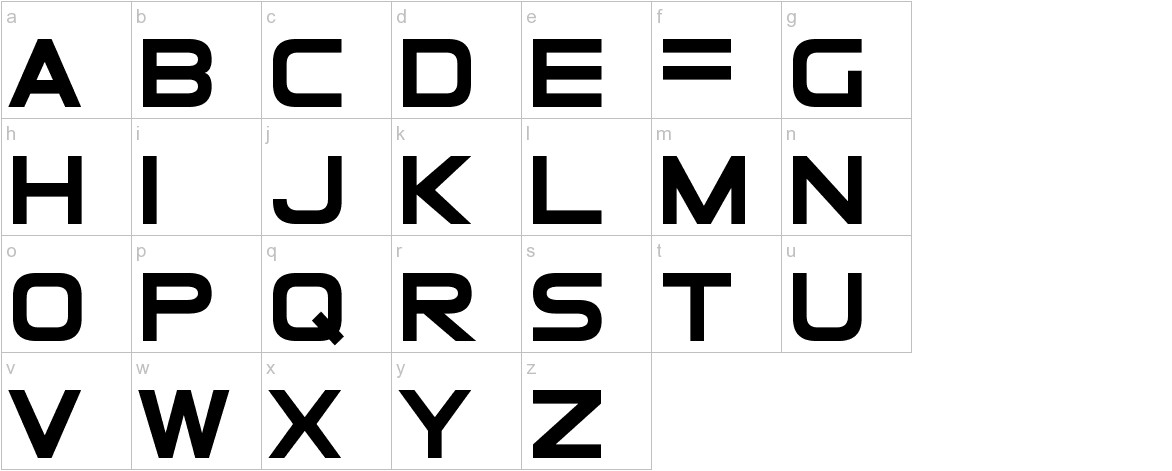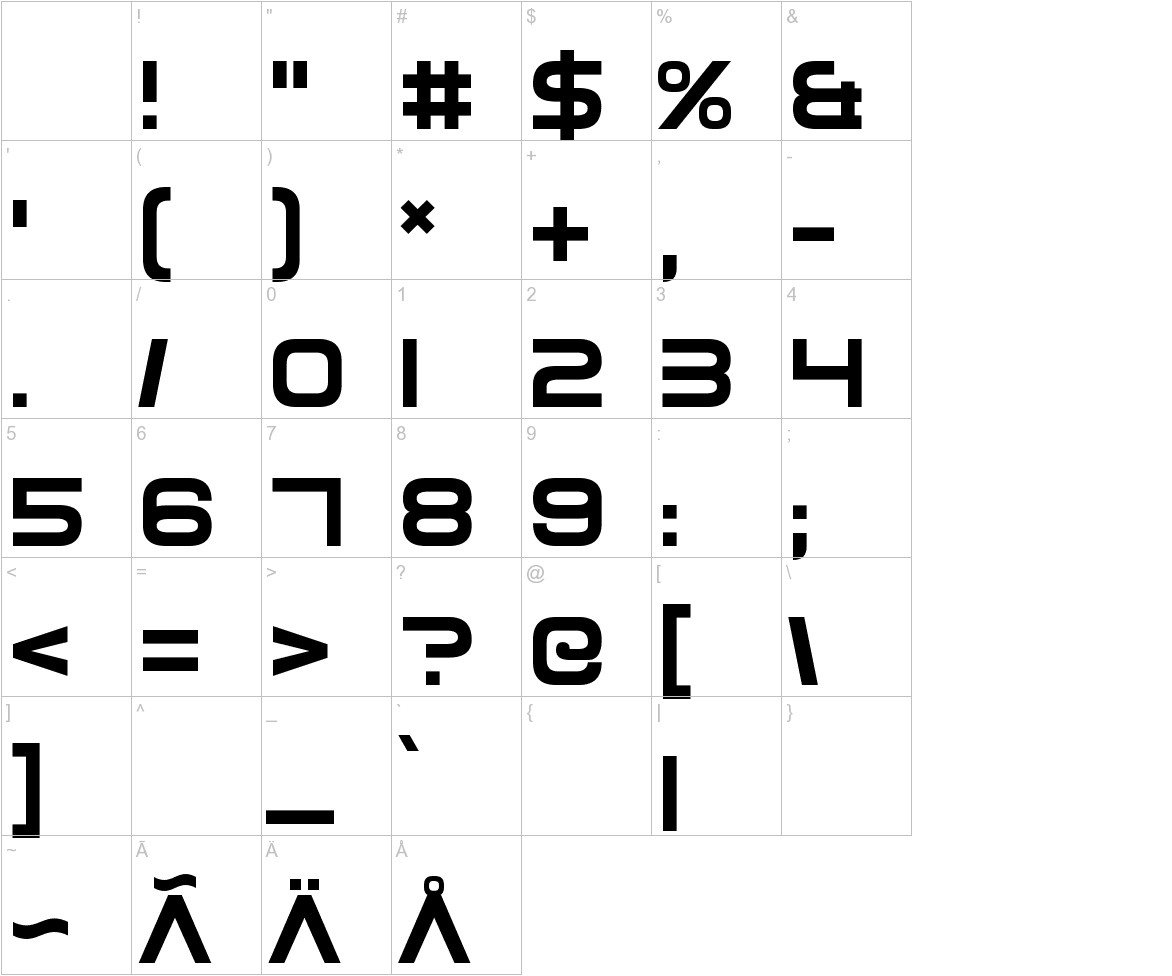
ElementalEnd
A futuristic sans serif caps headline face.
Comes in regular and italic.
Upper case letters are alternative forms, while lower case are more standard and readable forms. Includes alternative versions of A, B, D, E, F, K, P, R and AE.
2012/7/10 Update, version 2.00: Re-did some of the glyphs to keep the brush width constant, re-did the italic version, added more alternative forms of some letters, fixed naming/formatting, kerning and a bunch of other stuff.